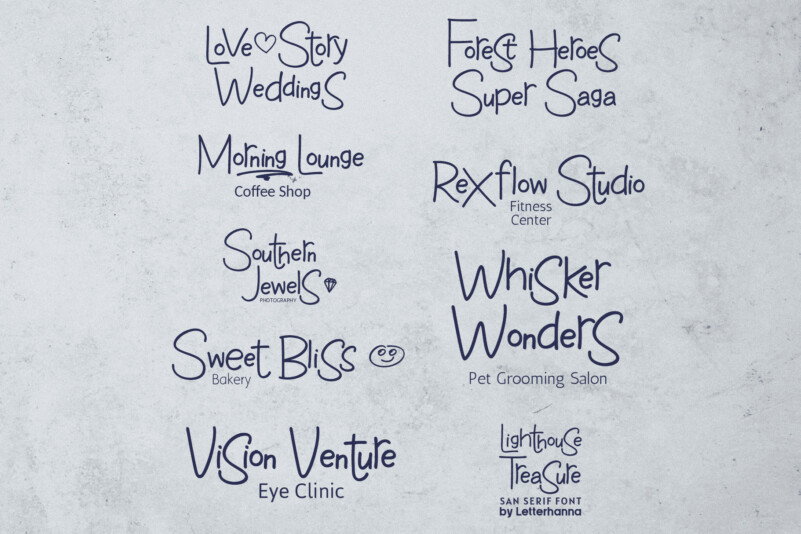
Meet Lighthouse Treasure — a handwritten kids’ font with serious character. Casual, expressive, and impossible to ignore, it’s built for designers who want their work to feel genuinely playful, not generically “cute.”
Loaded with 36+ OpenType ligatures, underline swashes, ornaments, arrows, and scribble extras (accessed via shortcuts), this font is a complete creative system. PUA encoded for full glyph access in any app. Supports multilingual characters, numbers, and punctuation. Available in TTF, OTF, and WOFF.
Whether you’re designing a children’s storybook, a fun logo, or a vibrant poster — Lighthouse Treasure is the font that makes people smile before they even read the words.